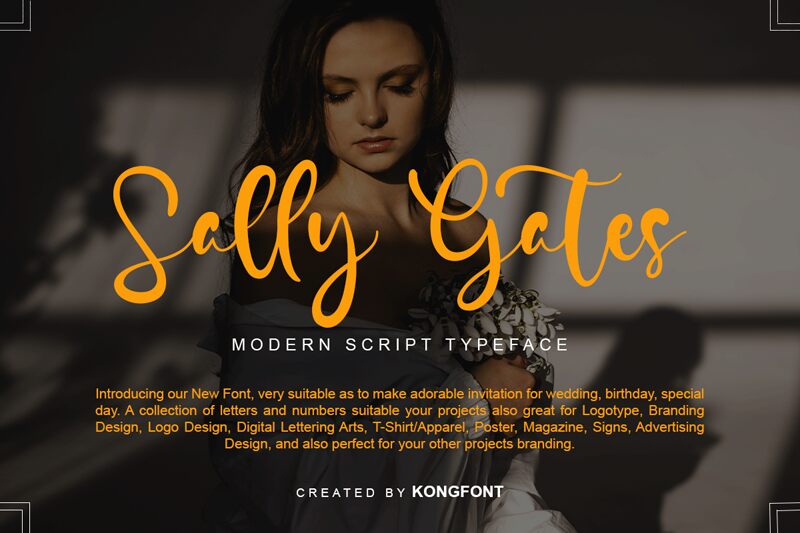
Sally Gates
Sally Gates is a modern script font designed by Kong Font, perfect for adding a touch of elegance and sophistication to your designs. Its semi-light weight creates a delicate and refined look, making it ideal for wedding invitations, greeting cards, and other formal occasions. With its beautiful flourishes and graceful curves, Sally Gates is also well-suited for branding projects such as luxury fashion or beauty products. Whether you're looking to add a touch of romance or sophistication to your designs, Sally Gates is the perfect choice for any project that demands a modern script font.